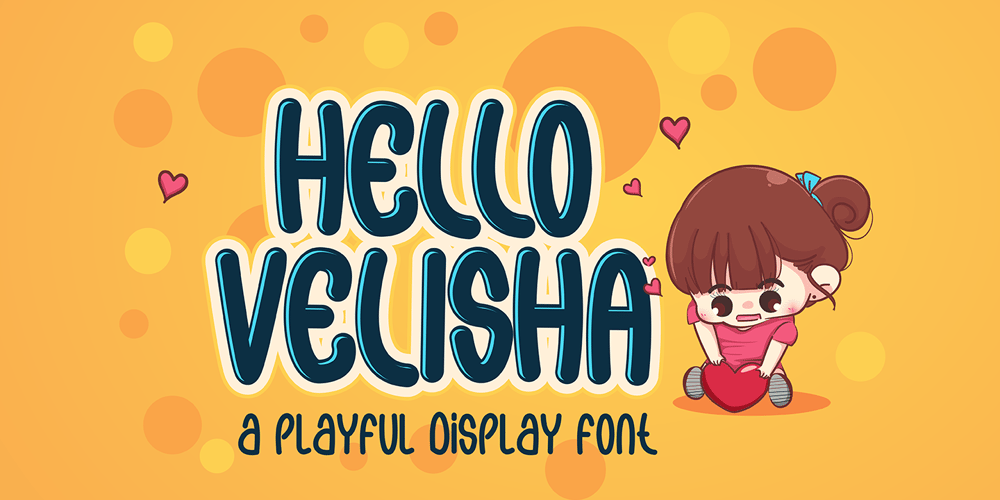
Hello Velisha Font Family was designed by Sipanji and published by Sipanji21. Hello Velisha contains 1 styles and family package options. Hello Velisha is a playful display font inspired by the joyful world of colorful children. The unique characteristics of the Hello Velisha make it very suitable for various purposes such as quotes, t-shirt designs, flyers, youtube channels, labels, logos, etc.